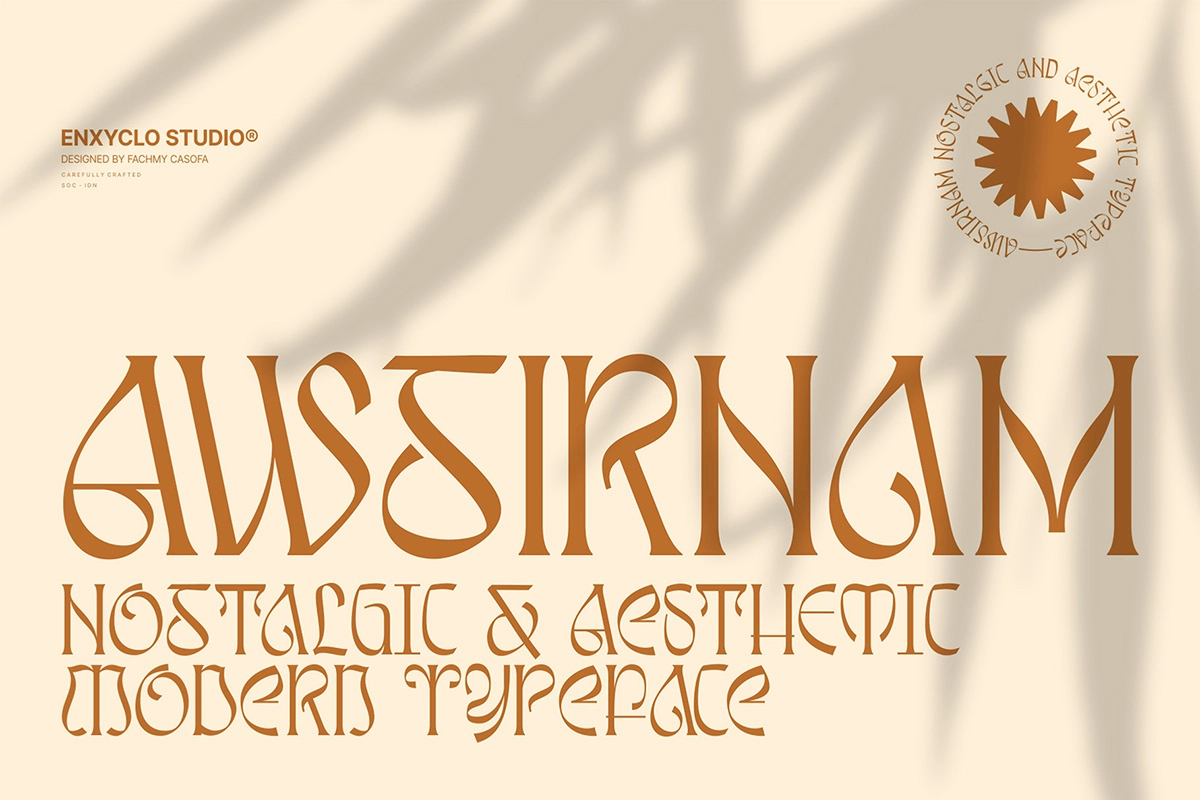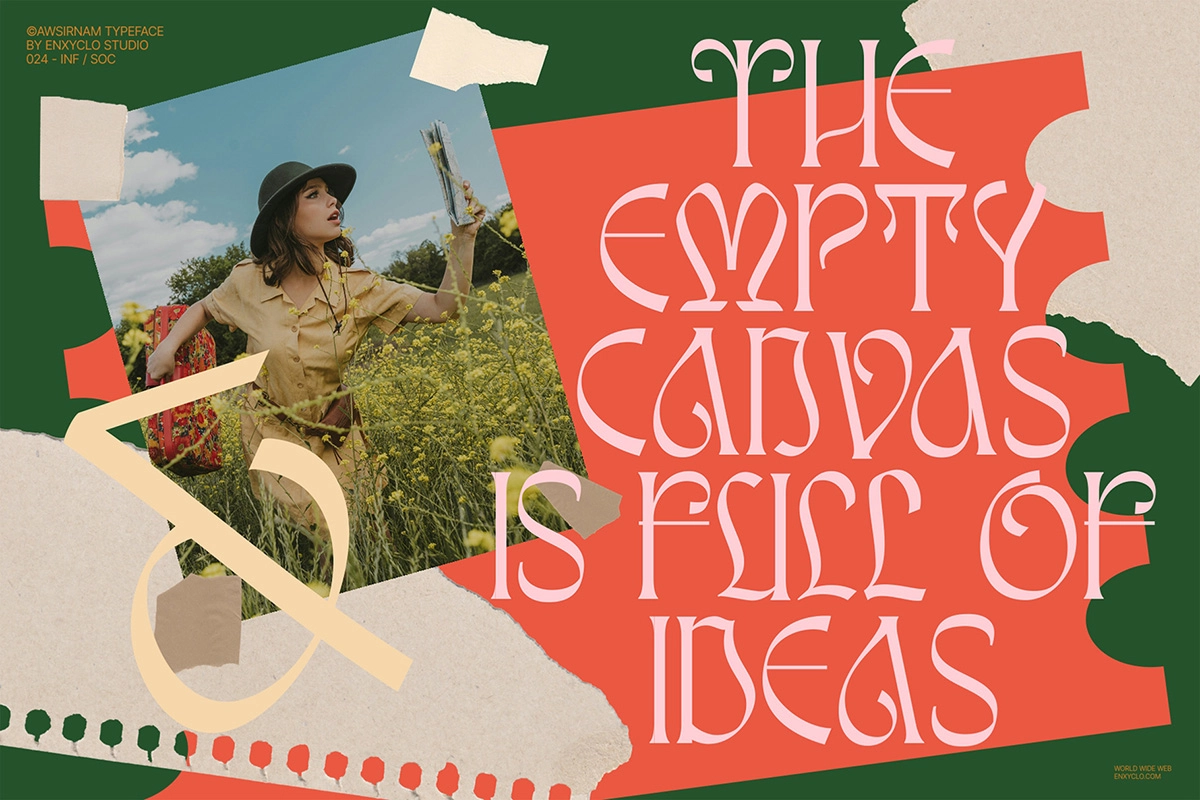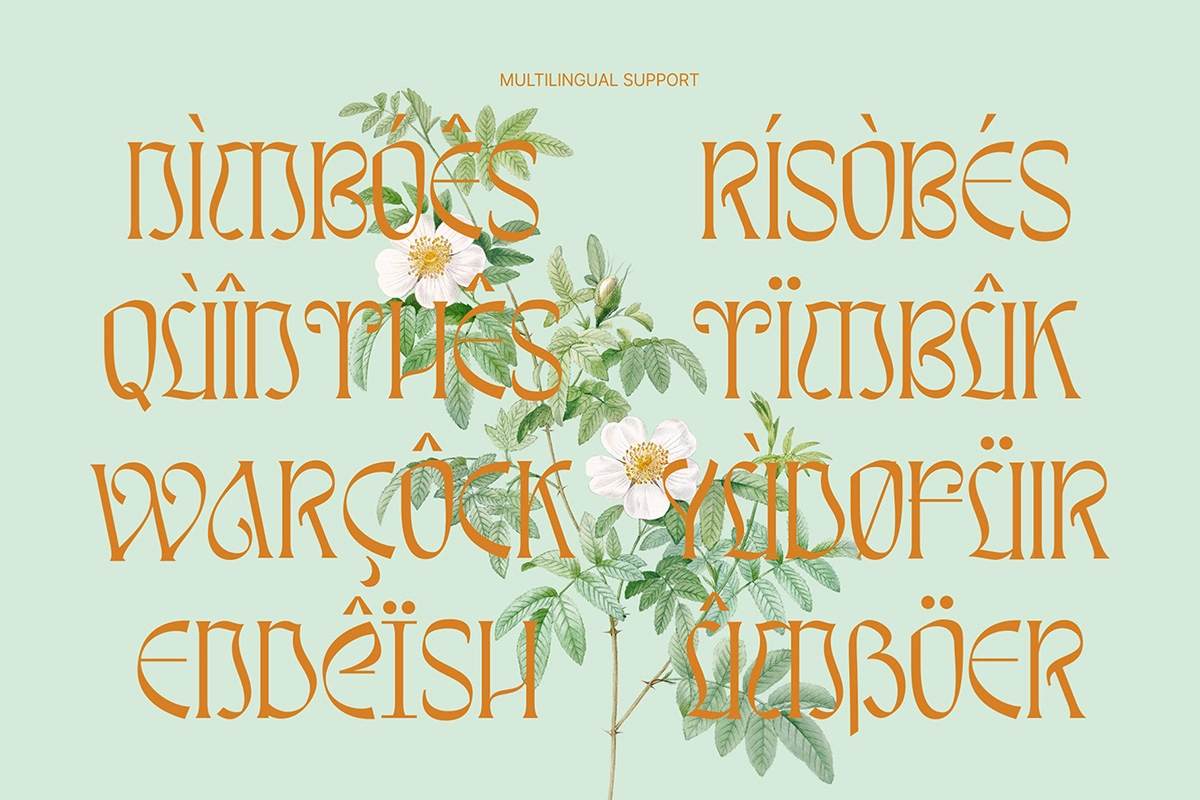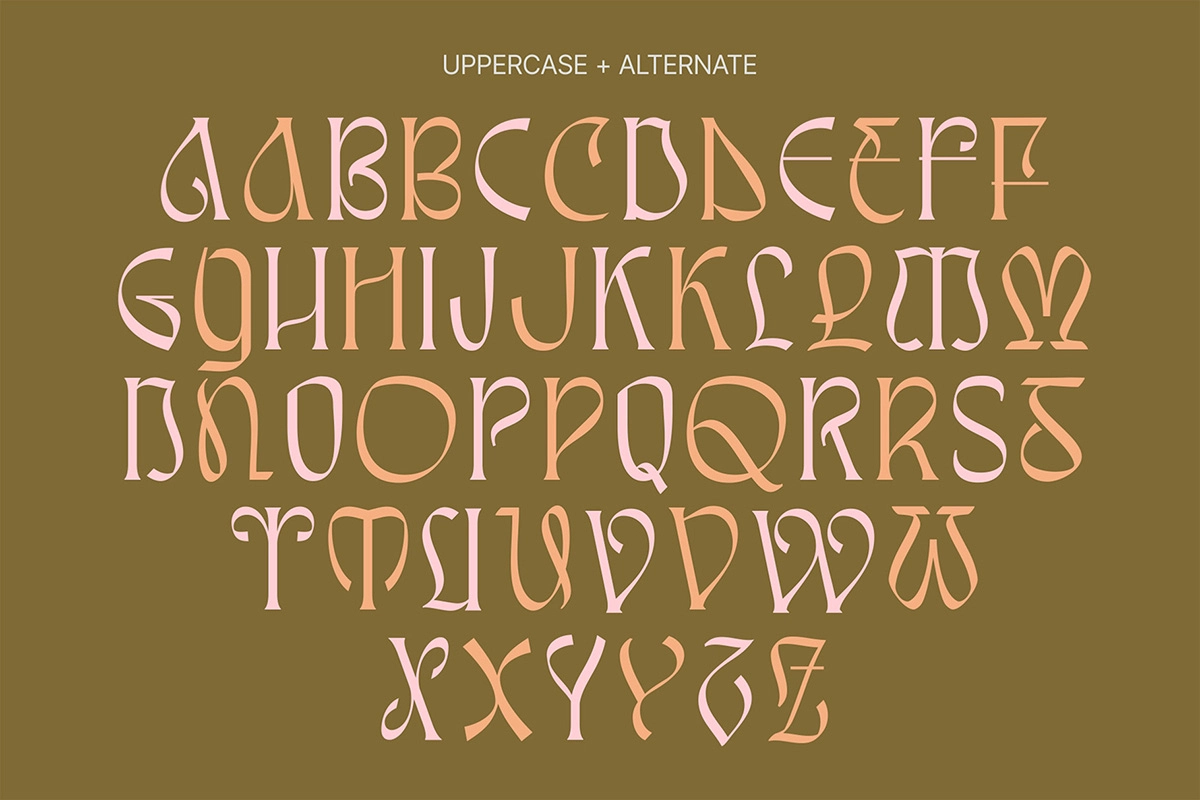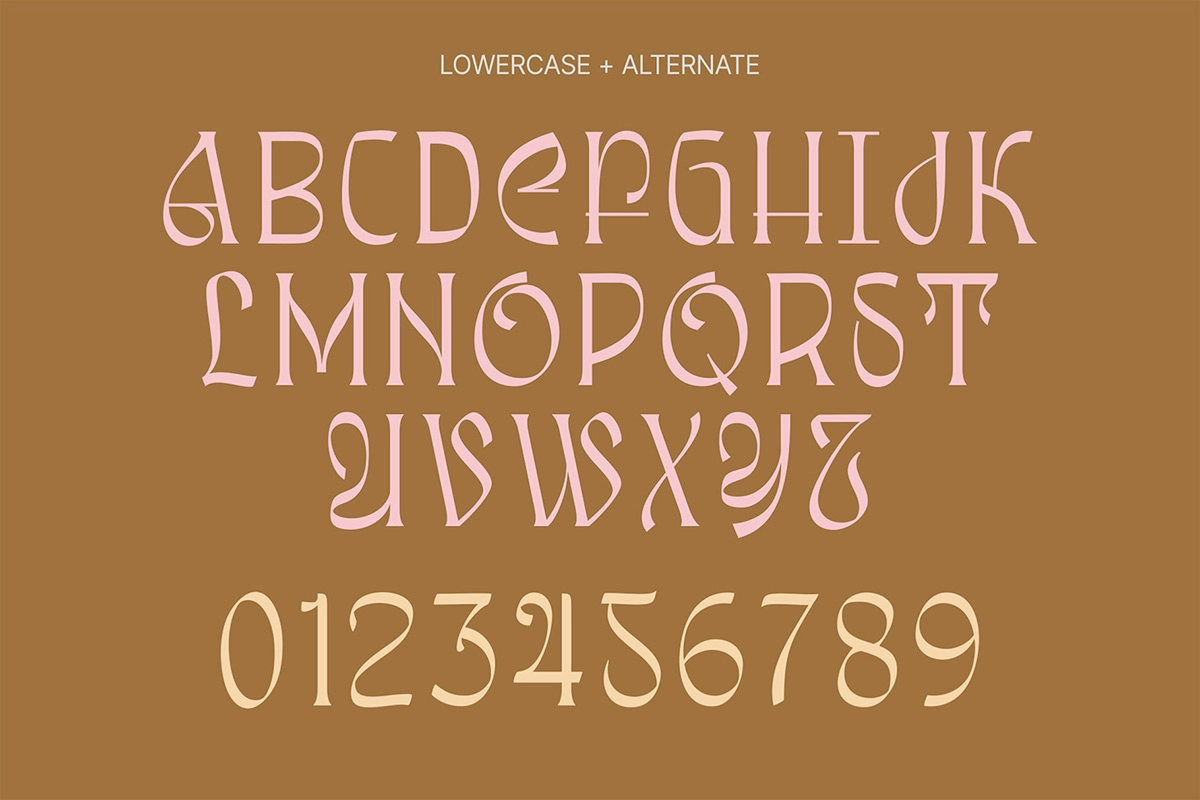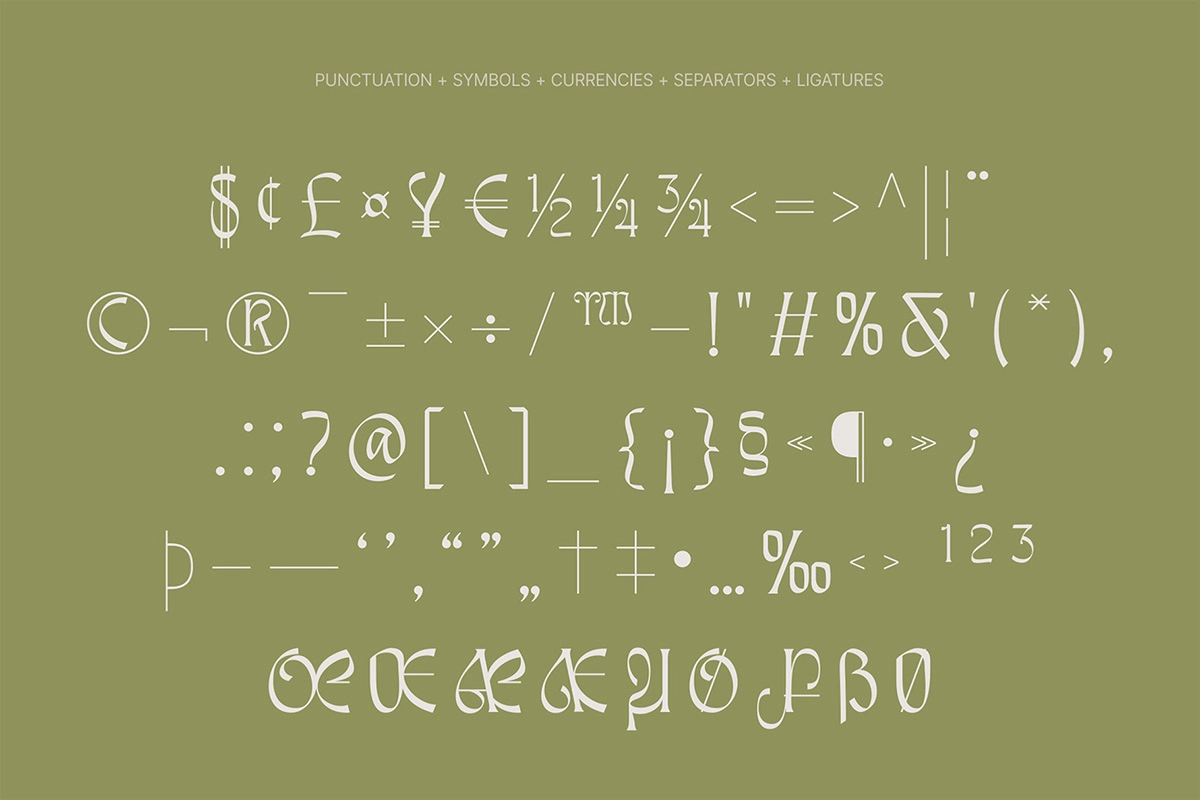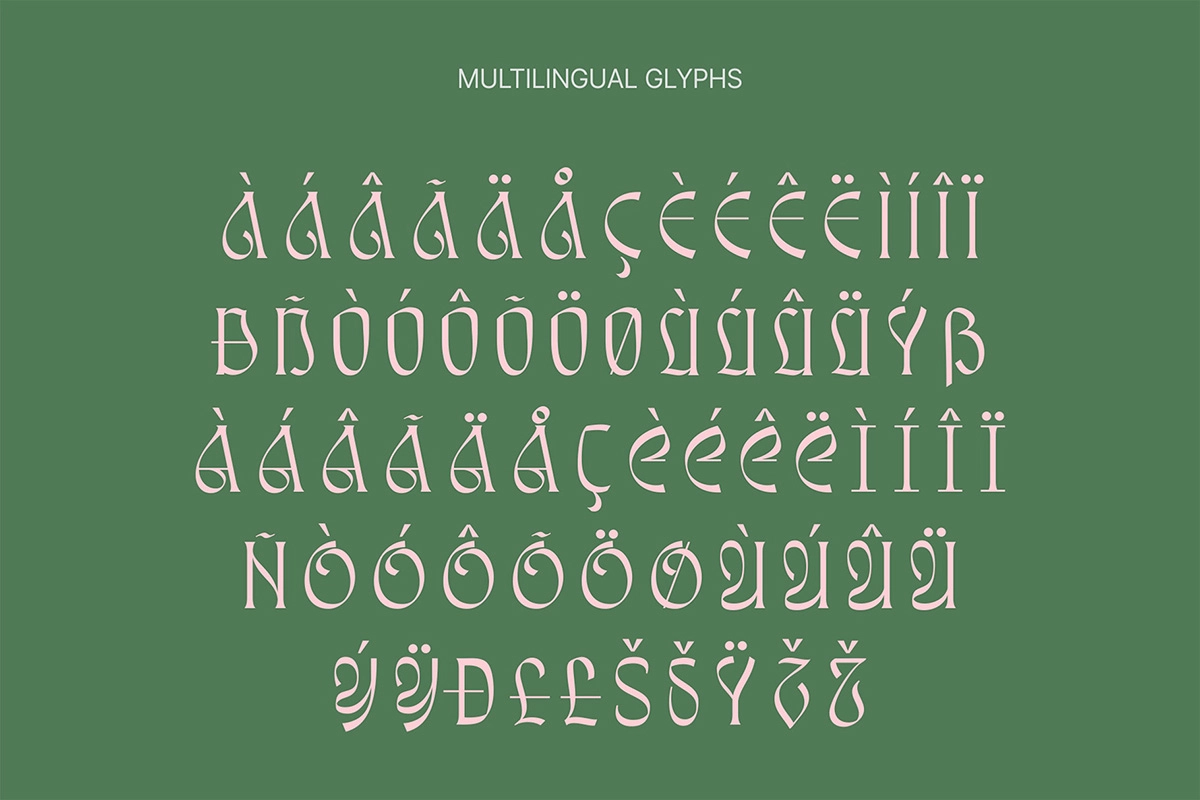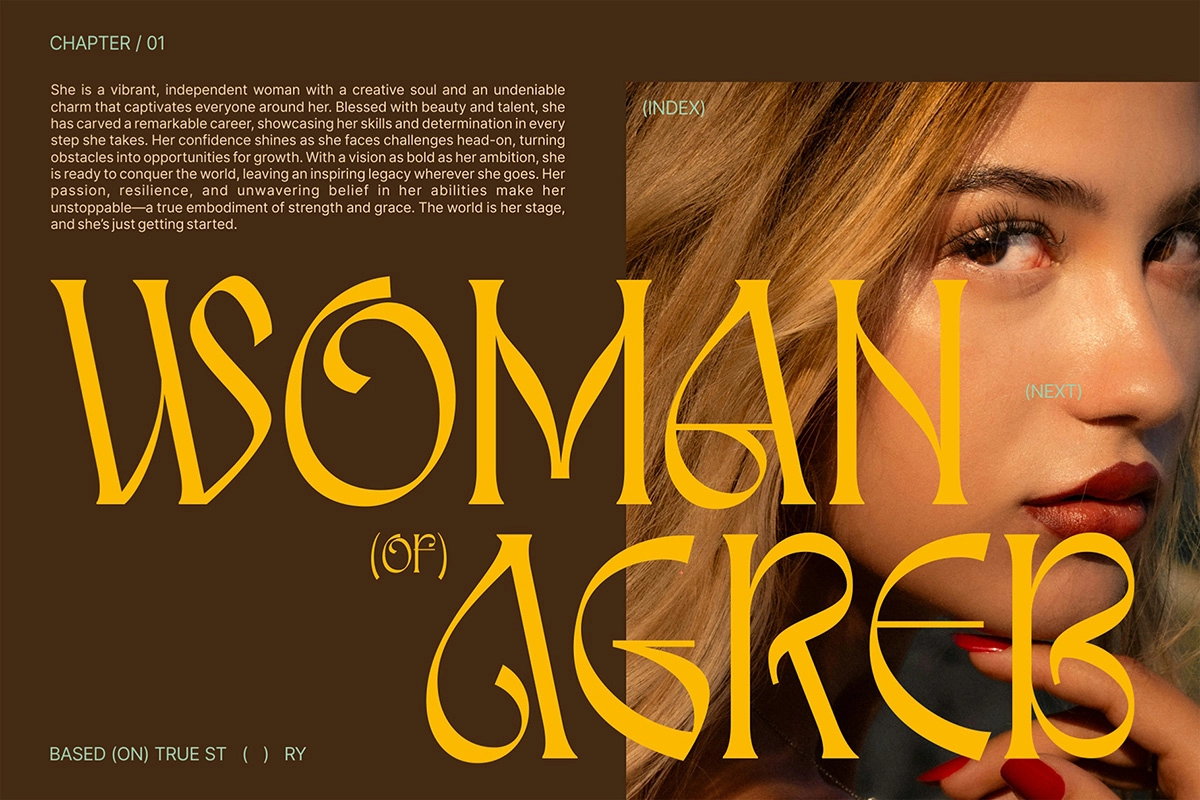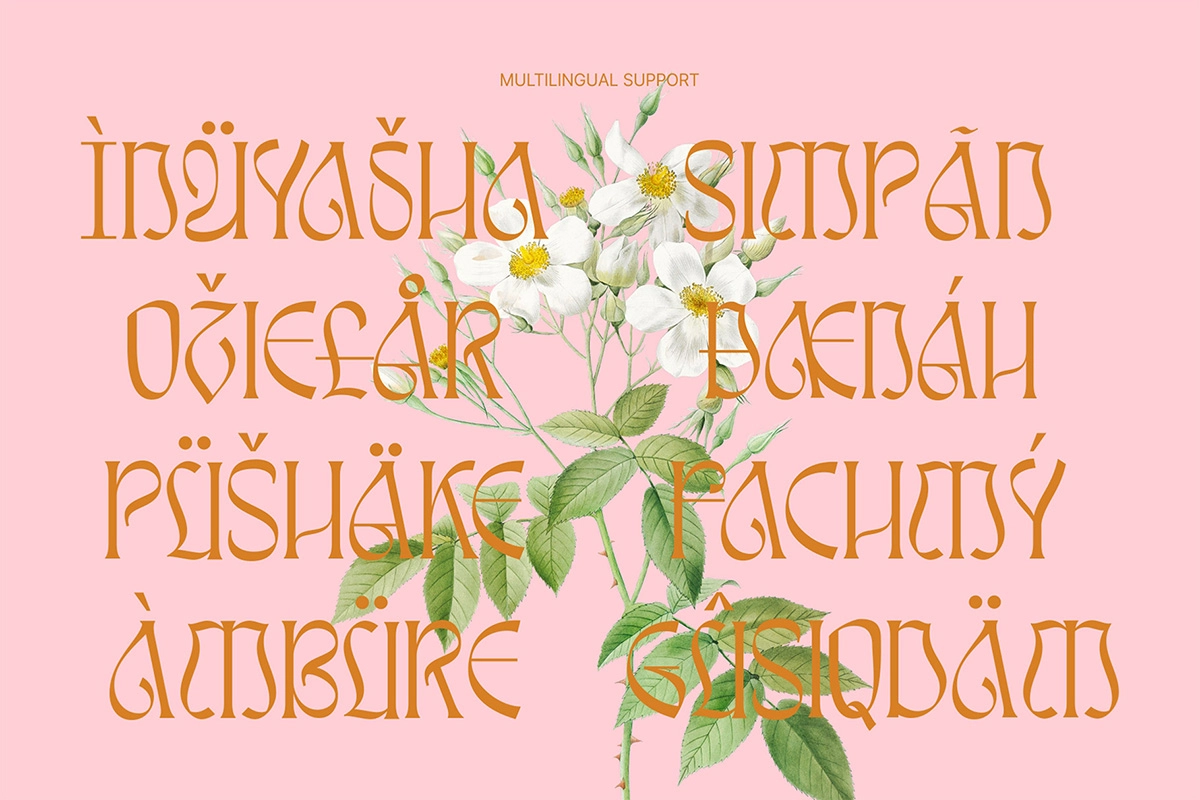
Awsirnam - Nostalgic Serif Font
Awsirnam – Nostalgic Serif Font is a contemporary serif display typeface that blends elegant curves with sharp structural accents, creating a unique balance between nostalgic charm and modern design. Its bold, flowing letterforms bring a refined yet expressive character that works beautifully for impactful typography. The font combines classic serif elegance with subtle futuristic touches, giving it a distinctive personality suitable for creative and editorial applications.
Designed to perform exceptionally well in headlines while remaining clear at smaller sizes, Awsirnam offers versatility for a wide range of design projects. From branding and logos to posters, digital ads, magazines, and web design, this typeface delivers a strong visual presence and sophisticated typographic style that helps any project stand out.
- 258 Unique Glyphs
- Alternates
- Uppercase & Lowercase Characters
- Numerals, Punctuation & Symbols
- Nostalgic Modern Serif Style